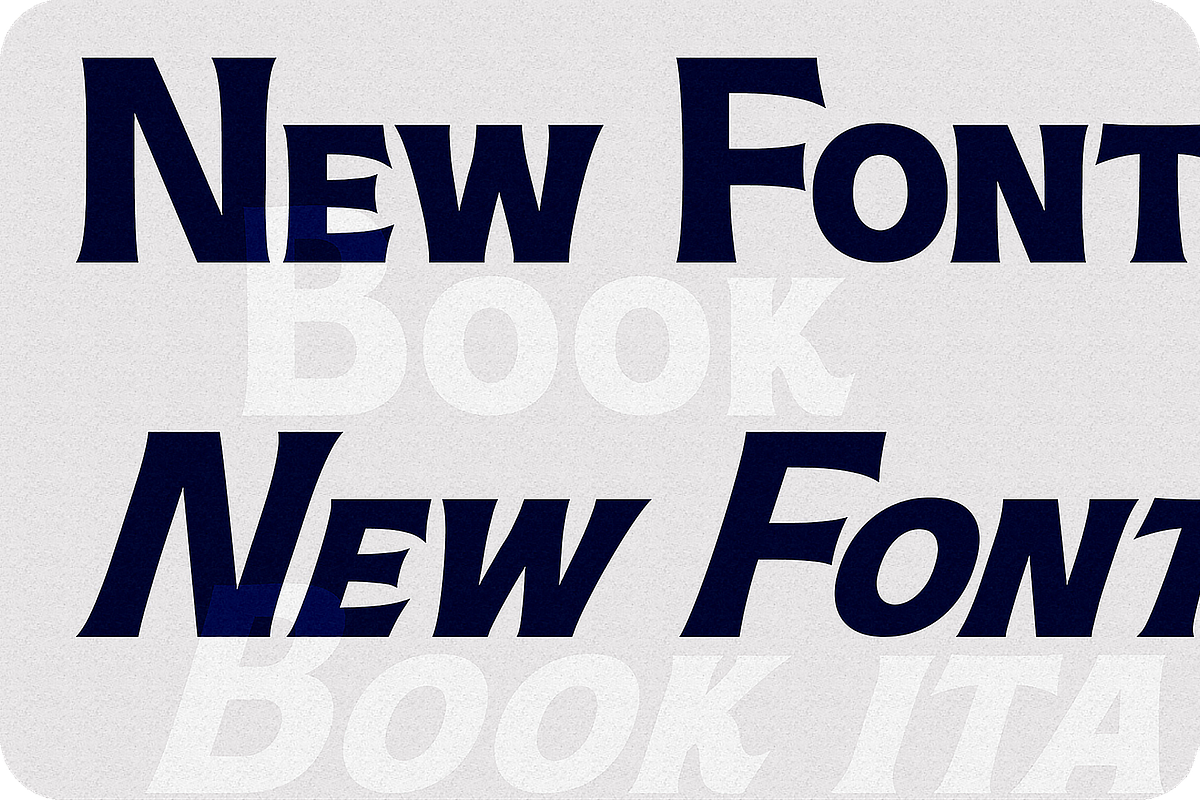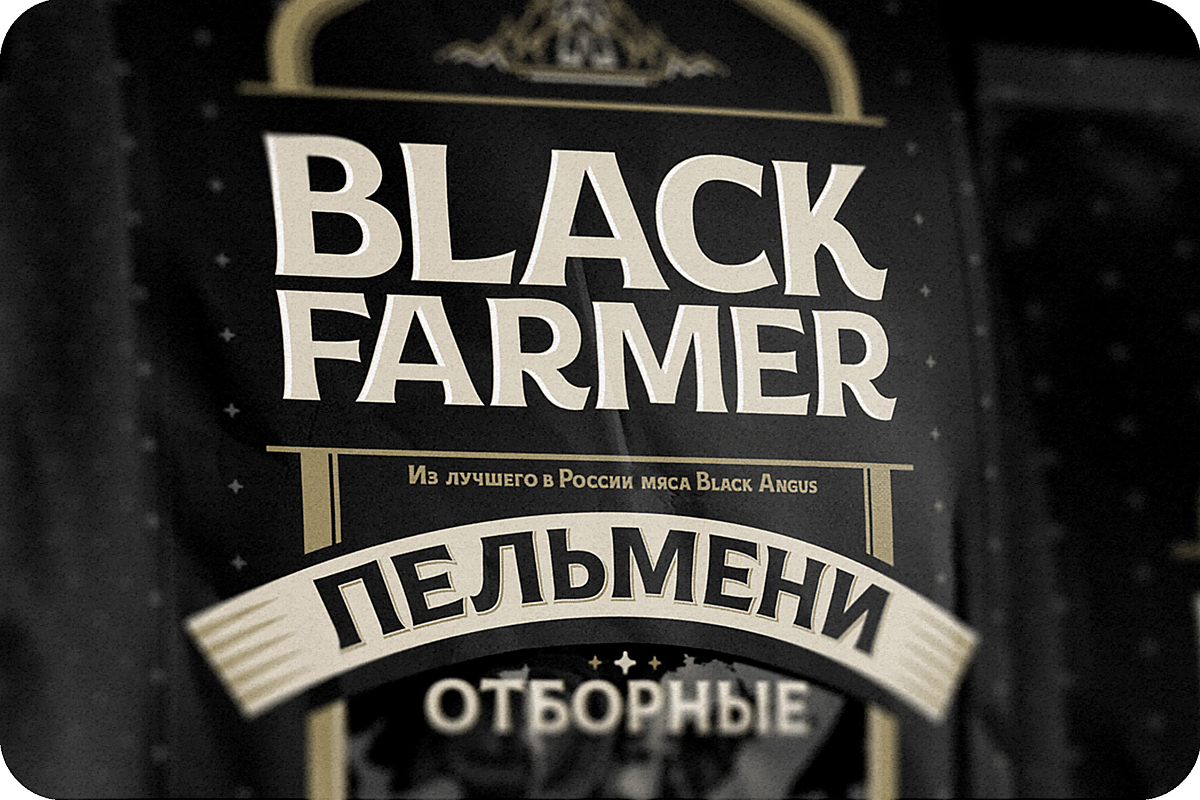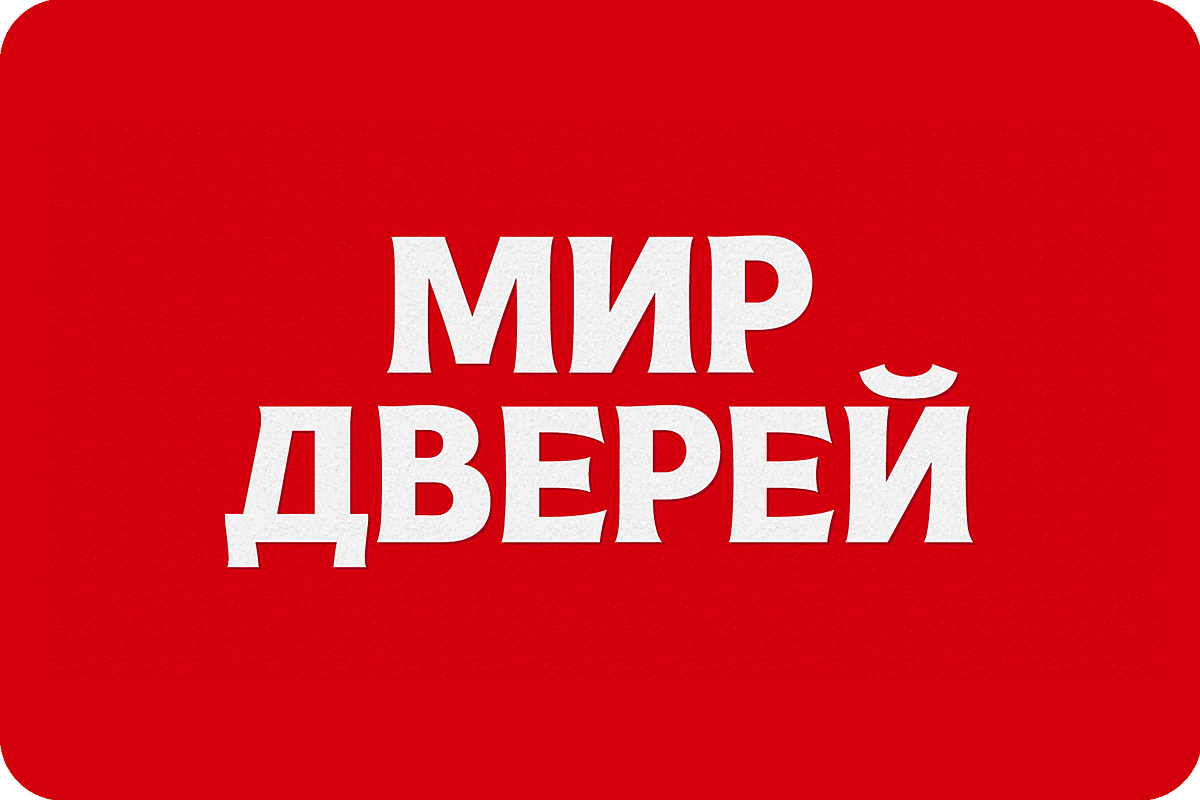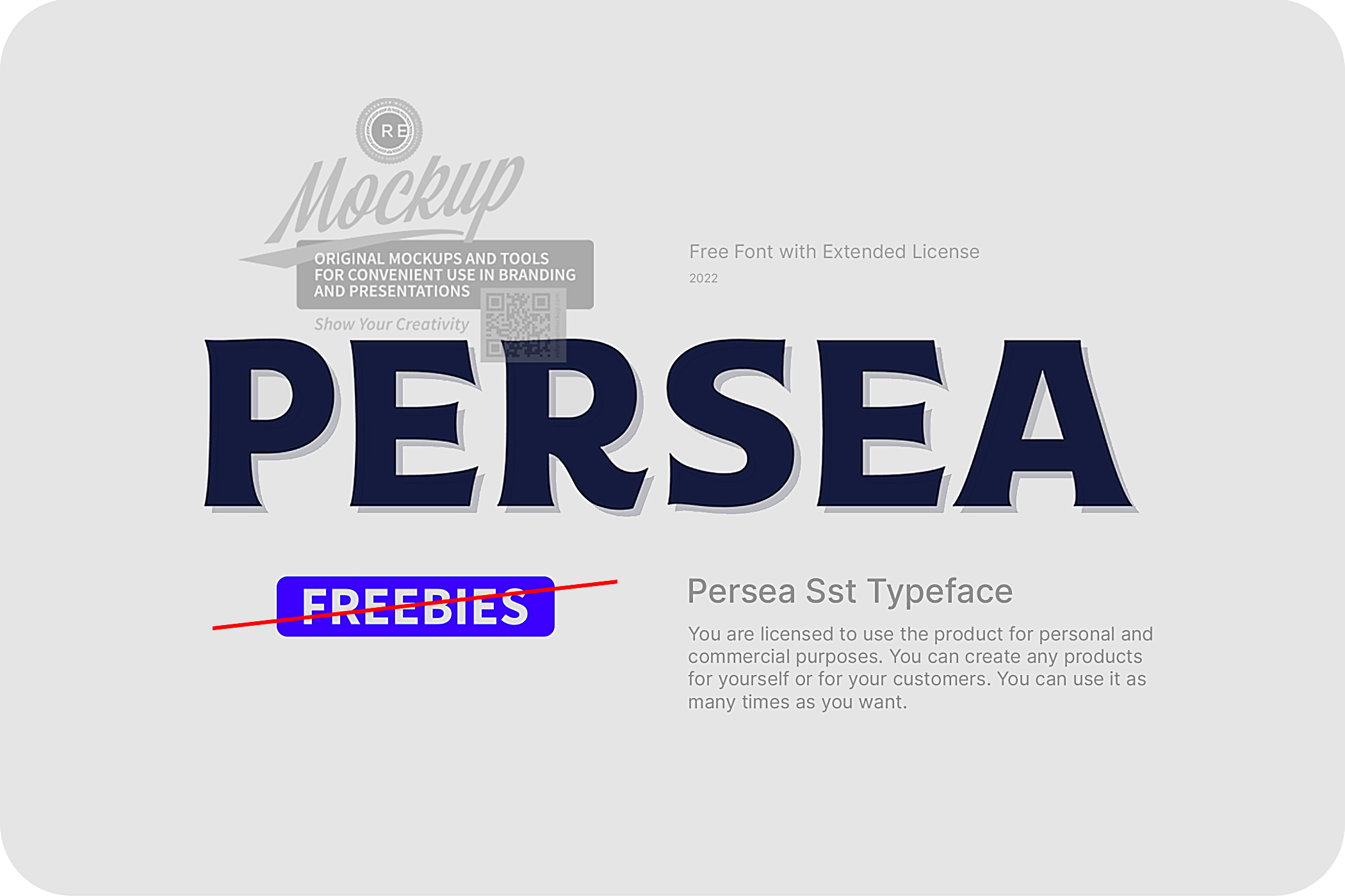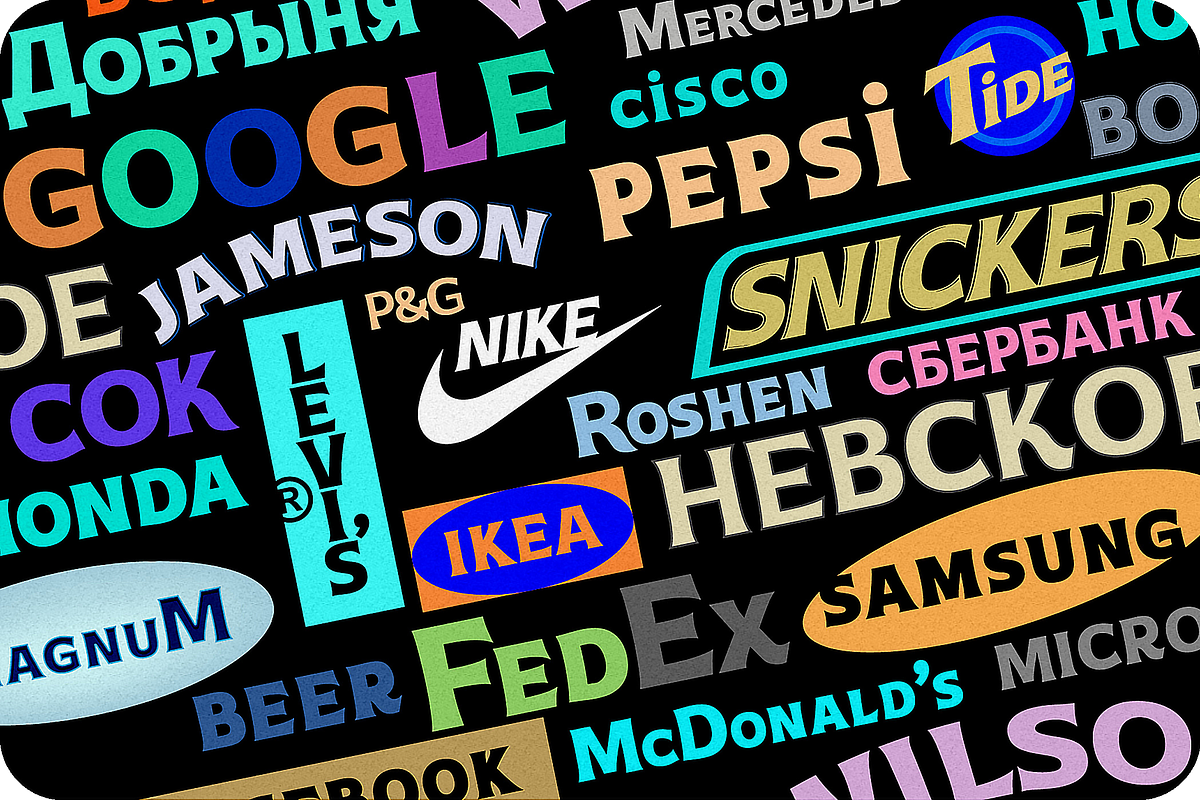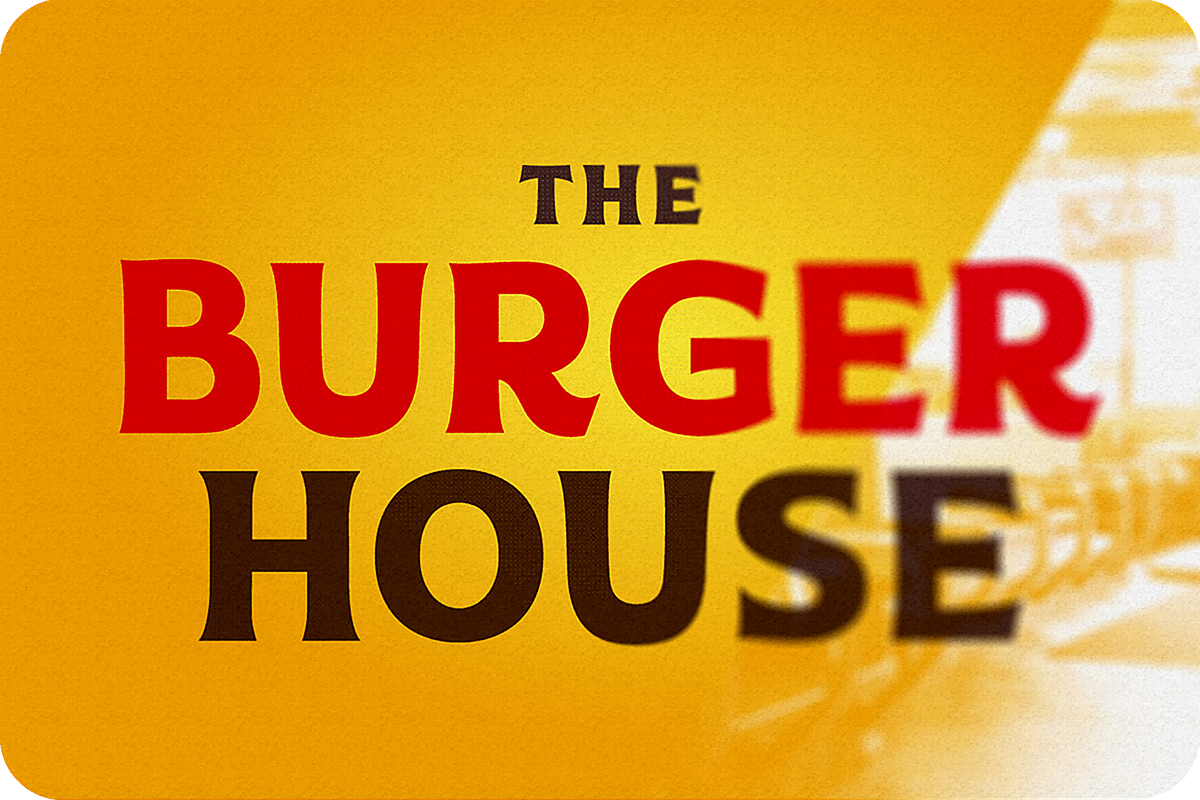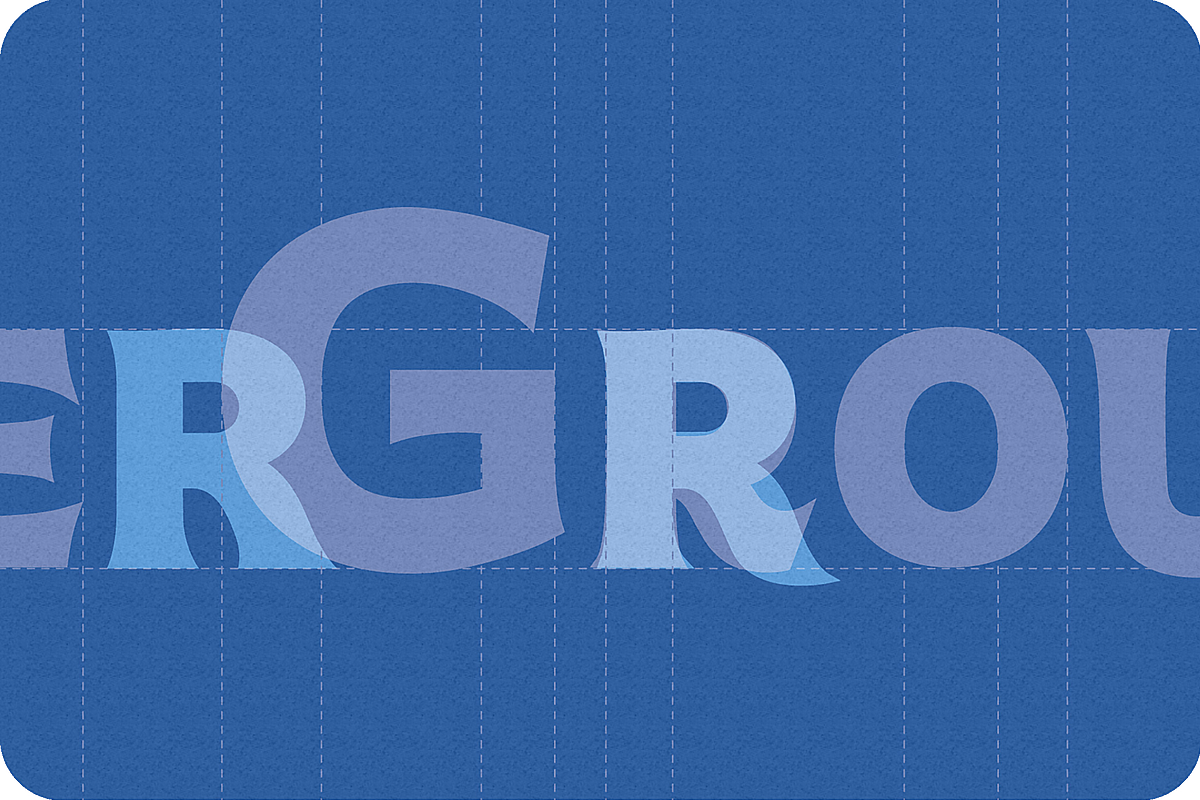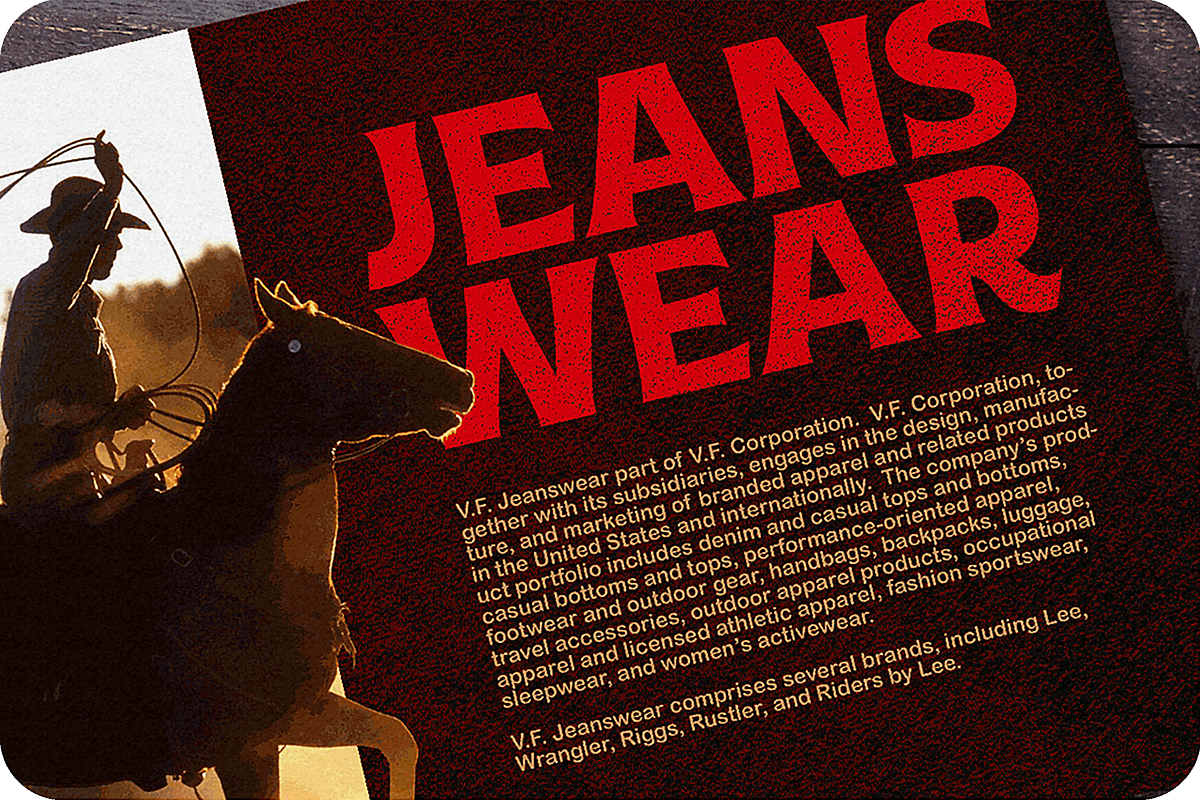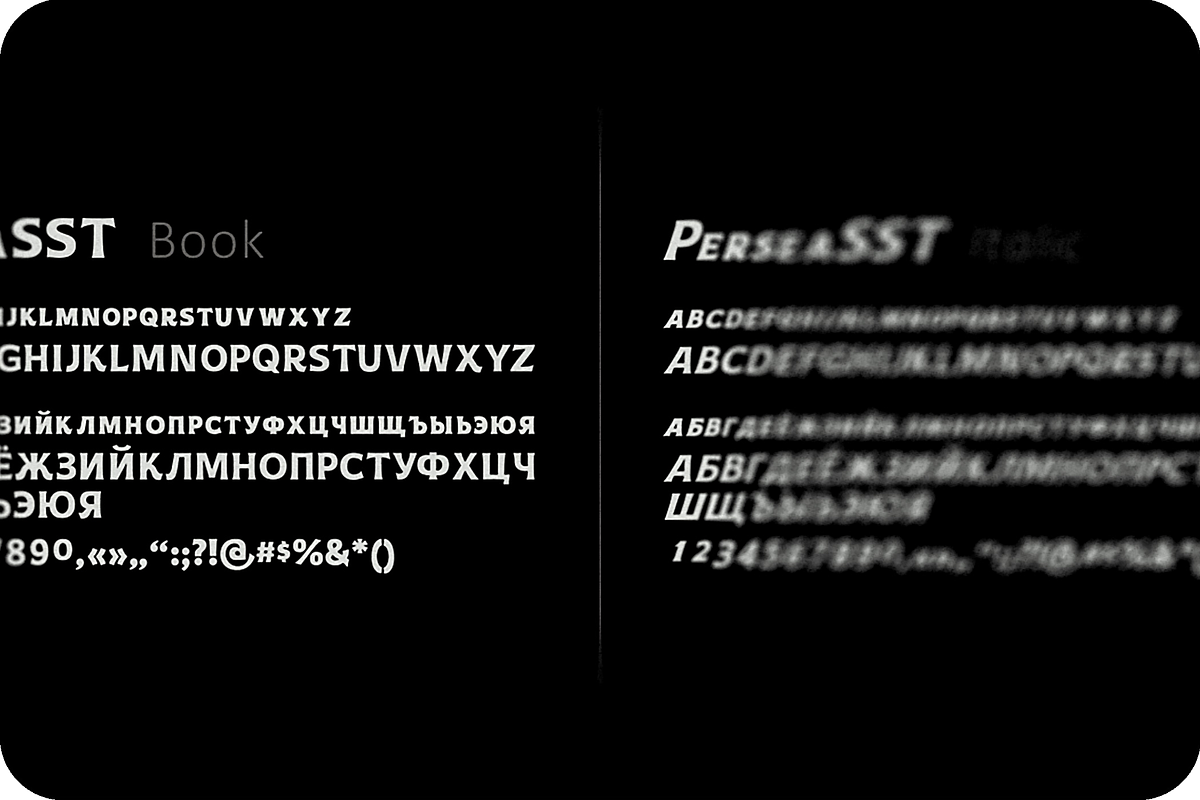
Persea Typeface
Persea SST Typeface
Introducing the free Persea SST, a clean, classic serif typeface designed for readability at scales large and small. This font was created for display needs such as headings, signage, logo, badge design, packaging, etc. OTF and TTF files are included. Latin and Cyrillic version. You are licensed to use the product for personal and commercial purposes. You can create any products for yourself or for your customers. You can use it as many times as you want.